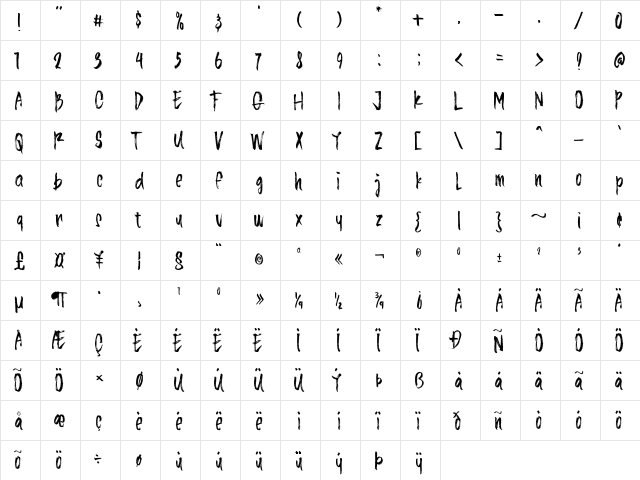
Alinea Typeface Regular
| Foundry | Hindra Permana |
Design Context for Alinea Typeface Typeface
Alinea Typeface is a composed and adaptable typeface that performs quietly and consistently across a wide range of design contexts.